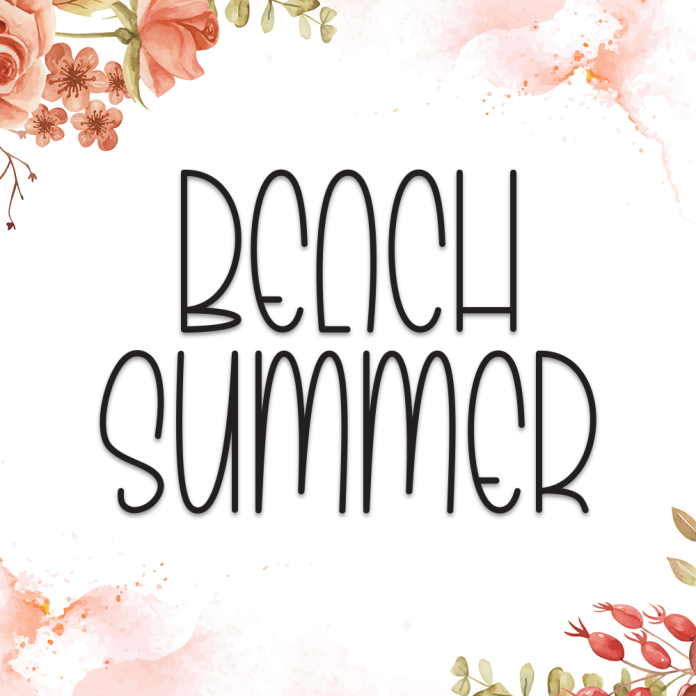
Beach Summer is a bold, cheerful display font that captures the carefree essence of sunny days by the ocean. With playful curves and a relaxed vibe, this font is perfect for designs that scream vacation, beach vibes, and fun in the sun!
Ideal for summer posters, tropical party invites, beach-themed branding, T-shirt designs, and social media graphics that want to feel warm, bright, and energetic.
Bold and friendly display style
Inspired by summer, sand, and surf
Great for headlines, logos, and creative layouts
Turn up the heat and let your design shine with Beach Summer – the font that brings tropical joy to every word!